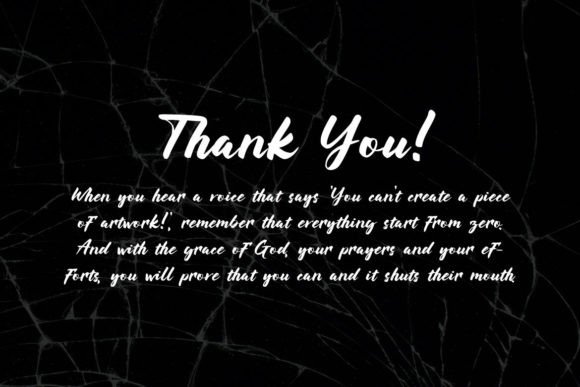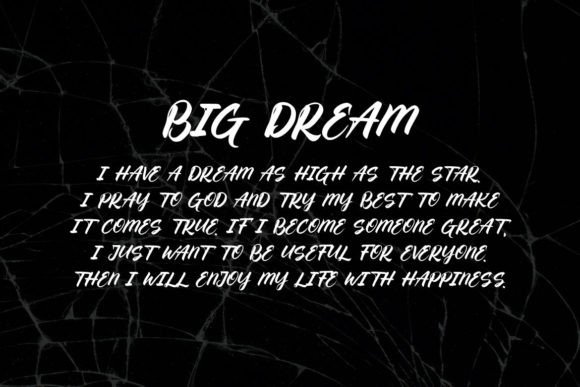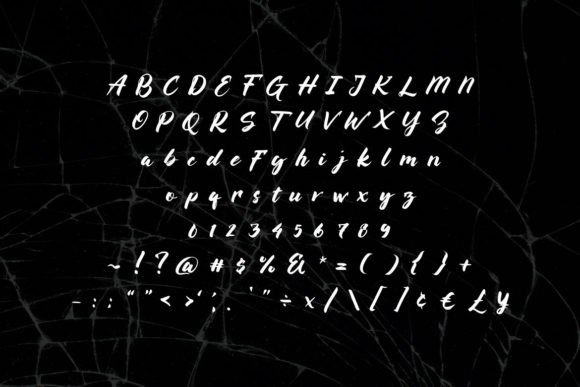
Introducing Fred Loud: The Bold Handwritten Font for Creative Projects
In the world of typography, a good font can make all the difference in elevating your creative projects from ordinary to extraordinary. If you’re a designer, crafter, or simply someone who appreciates the art of beautiful writing, you’re in luck. Say hello to Fred Loud, a bold handwritten font that brings the perfect blend of raw energy and sophisticated style to your designs.
The Art of Modern Calligraphy
Crafted with meticulous attention to detail, Fred Loud captures the essence of modern calligraphy, combining fluid strokes with a bold, confident touch. This font is not just a collection of letters; it’s an expression of artistry and craftsmanship. Each stroke, each curve, and each flourish has been carefully considered to create a font that is both visually striking and effortlessly readable.
The Beauty of Imperfection
One of the standout features of Fred Loud is its carefully crafted imperfections. Unlike sterile, uniform fonts, Fred Loud maintains the natural flow and imperfection of true handwriting, adding a personal and authentic touch to your designs. This subtle irregularity gives your text a sense of human touch, making it feel more approachable and engaging to your audience.
Fred Loud is an incredibly versatile font, ideal for a wide range of applications. Whether you’re creating a logo, branding materials, social media graphics, invitations, or any other type of design, this font is sure to make a statement. Its bold presence ensures readability even at smaller sizes, making it perfect for use in a variety of contexts.
Applications for Designers and Crafters
So, how can you use Fred Loud in your creative projects? Here are just a few ideas to get you started:
- Logos and Branding: Use Fred Loud to create a bold, eye-catching logo that sets your brand apart from the competition.
- Social Media Graphics: Add a personal touch to your social media posts with Fred Loud’s unique, handwritten style.
- Invitations and Stationery: Create beautiful, one-of-a-kind invitations and stationery that showcase your personality and style.
- Packaging and Product Design: Use Fred Loud to add a touch of elegance and sophistication to your product packaging.
Why Choose Fred Loud?
With so many fonts to choose from, why should you choose Fred Loud? Here are just a few reasons why this font stands out from the crowd:
- Unique Style: Fred Loud’s bold, handwritten style is unlike anything else out there.
- Highly Readable: Despite its bold presence, Fred Loud is incredibly readable, even at smaller sizes.
- Versatile: Use Fred Loud in a wide range of applications, from logos and branding to social media graphics and invitations.
- Authentic Touch: Fred Loud’s imperfections give your text a personal, authentic touch that sets it apart from more uniform fonts.
Key Features of Fred Loud Font
- Bold Handwritten Style: Fred Loud features a bold, confident handwritten style that’s perfect for making a statement.
- Modern Calligraphy: This font captures the essence of modern calligraphy, combining fluid strokes with a bold, confident touch.
- Imperfectly Perfect: Fred Loud’s imperfections give your text a personal, authentic touch that sets it apart from more uniform fonts.
- Highly Versatile: Use Fred Loud in a wide range of applications, from logos and branding to social media graphics and invitations.
- Readability: Despite its bold presence, Fred Loud is incredibly readable, even at smaller sizes.